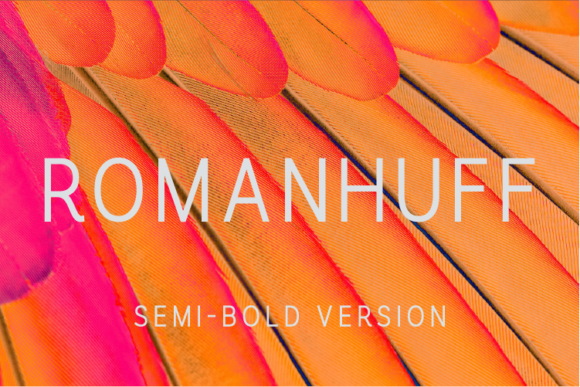
**Romanhuff Semi-Bold: Timeless All Caps Sans Serif Font for All Your Design Needs**
In a world saturated with visual clutter, where every brand clamors for attention, simplicity reigns supreme. Introducing Romanhuff Semi-Bold, the minimalistic masterpiece that cuts through the noise and captivates with its understated elegance. A sans serif font family designed to endure, Romanhuff is the epitome of timeless beauty, crafted with meticulous attention to detail by the renowned font artist, A Christie.
With its clean lines, generous spacing, and striking all-caps design, Romanhuff Semi-Bold exudes confidence and clarity. Its strong geometric structure ensures excellent readability, making it perfect for creating visually captivating headers, eye-catching web designs, and impactful marketing materials. Whether you're a seasoned designer or just starting your creative journey, Romanhuff Semi-Bold is the perfect font to elevate your projects.
**A Font for All Seasons, All Projects**
Romanhuff Semi-Bold's versatility is truly remarkable. Its minimalist aesthetic seamlessly complements a wide range of design styles, from classic and traditional to modern and experimental. Create sophisticated logos that exude timeless appeal, design stunning posters that command attention, or craft elegant invitations that leave a lasting impression. The possibilities are endless with Romanhuff Semi-Bold.
**Unleash Your Creativity with Romanhuff Semi-Bold**
With its timeless design and universal appeal, Romanhuff Semi-Bold is the ultimate font for expressing your creativity. Let your imagination soar and create designs that speak volumes. Whether you're designing for print or digital media, Romanhuff Semi-Bold will add a touch of sophistication and elegance to your work.
**Experience the Romanhuff Difference**
Romanhuff Semi-Bold is more than just a font; it's an investment in your creative arsenal. Its timeless design and versatility will serve you well for years to come, helping you create stunning visuals that captivate audiences and leave a lasting impression.